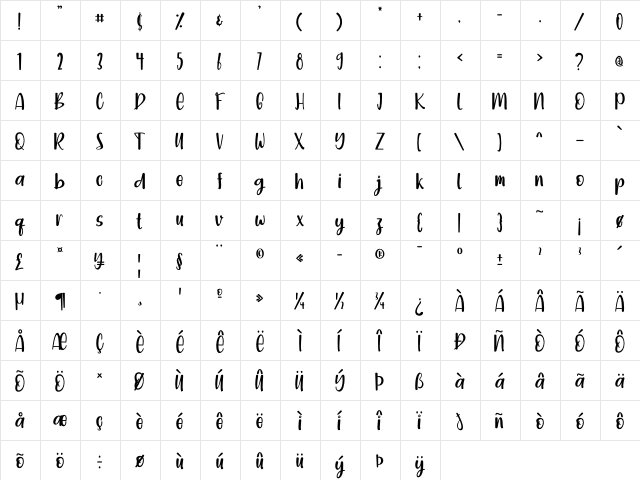
Bright Dream Regular
| Designer | Arief Tri Sulistiyono |
Design Context for Bright Dream Typeface
Bright Dream is a composed and adaptable typeface that performs quietly and consistently across a wide range of design contexts.